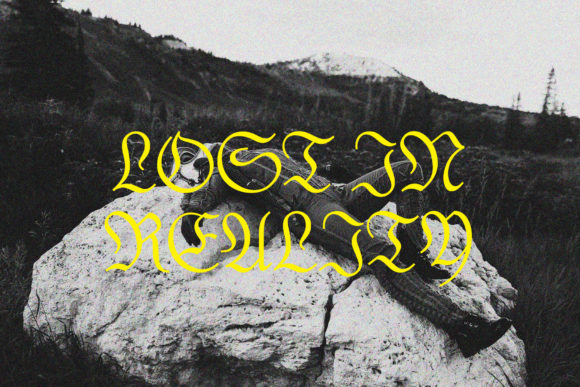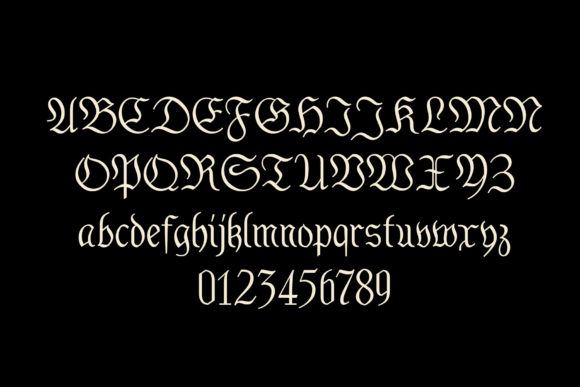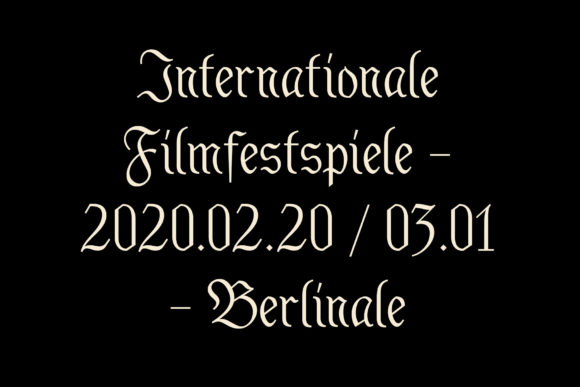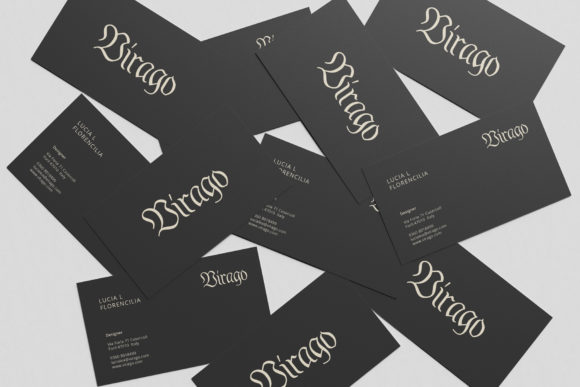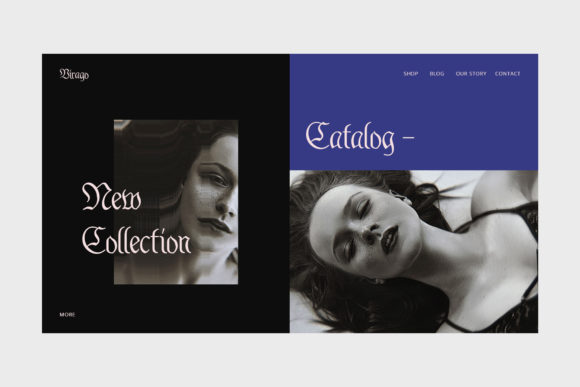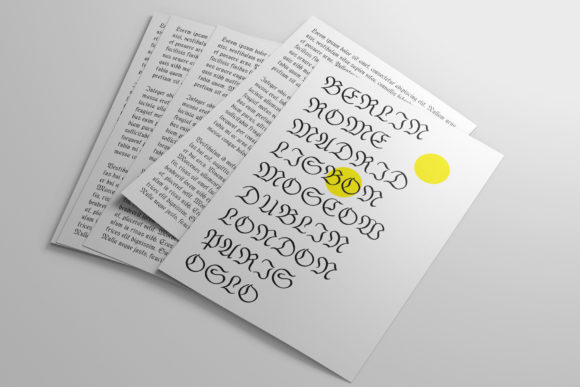
Introducing ED Vitinia Font: A Gothic Styled Blackletter Masterpiece
In the world of typography, fonts play a crucial role in conveying the tone and aesthetic of a design. For designers and crafters looking for a unique and elegant touch, ED Vitinia Font is an exceptional choice. This gothic styled, blackletter font boasts a classy, elegant, and modern look that’s perfect for a wide range of design projects.
What is ED Vitinia Font?
ED Vitinia Font is a thoughtfully crafted blackletter font that combines traditional Gothic elements with a modern twist. Its distinctive design makes it an excellent choice for those seeking a sophisticated and eye-catching look. The font’s unique style is characterized by intricate details, elegant lines, and a touch of luxury, making it perfect for high-end designs.
Key Features of ED Vitinia Font
- Unique Gothic Style: ED Vitinia Font features a classic Gothic design with a modern spin, setting it apart from traditional blackletter fonts.
- Elegant and Classy: The font’s refined lines and intricate details give it an air of sophistication, making it ideal for luxury brands, wedding designs, and high-end invitations.
- Modern Look: Despite its Gothic roots, ED Vitinia Font has a surprisingly modern feel, making it versatile enough to use in a variety of design contexts.
- High Versatility: This font can be used for logos, branding, invitations, stationery, wedding designs, social media posts, and much more.
Use Cases for ED Vitinia Font
ED Vitinia Font’s versatility makes it suitable for a wide range of design projects. Here are some use cases where this font truly shines:
- Logos and Branding: Create a lasting impression with a unique and memorable logo that stands out from the crowd.
- Wedding Designs: Add a touch of elegance and romance to wedding invitations, save-the-dates, and other stationery.
- Invitations and Stationery: Use ED Vitinia Font to create sophisticated and eye-catching invitations, business cards, and letterheads.
- Social Media Posts: Elevate your social media presence with stylish and engaging posts that showcase your brand’s personality.
- Packaging and Labels: Add a luxurious touch to product packaging and labels, making your products stand out on store shelves.
Why Choose ED Vitinia Font?
With so many fonts available, why choose ED Vitinia Font? Here are a few compelling reasons:
- Unique Design: ED Vitinia Font offers a distinctive design that sets it apart from more traditional fonts.
- Ease of Use: The font is easy to read and works well in various sizes, making it perfect for both print and digital designs.
- Time-Saving: With ED Vitinia Font, you can create professional-looking designs in no time, saving you valuable time and effort.
- Support for Multiple Languages: The font supports multiple languages, making it a great choice for global brands and designers.
Tips for Using ED Vitinia Font
To get the most out of ED Vitinia Font, here are some tips to keep in mind:
- Pair with Complementary Fonts: Combine ED Vitinia Font with complementary fonts to create visually appealing contrasts and hierarchies.
- Use for Headlines and Titles: ED Vitinia Font works particularly well for headlines and titles, where its unique design can make a bold statement.
ED Vitinia Font is a versatile and elegant blackletter font that’s perfect for designers and crafters looking to add a touch of sophistication to their designs. With its unique Gothic style, modern look, and high versatility, this font is sure to become a staple in your design arsenal. Whether you’re creating logos, branding, invitations, or social media posts, ED Vitinia Font is an excellent choice that will help you stand out from the crowd.